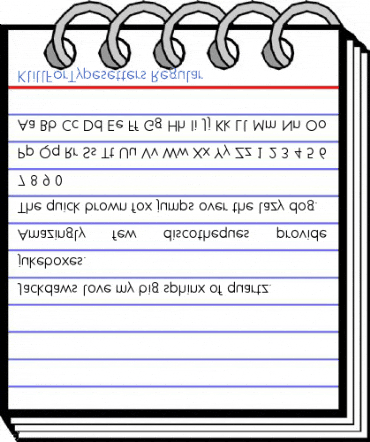
KlillForTypesetters Regular Font
Copyright: \251 M. Klein 10.2001, see: https://www.manfredklein.de \(see links too\) All rights reserved \(Nostalgic font, remembers what the hotmetal typesetter used to see, mirrored, but from left to right - like You.\)